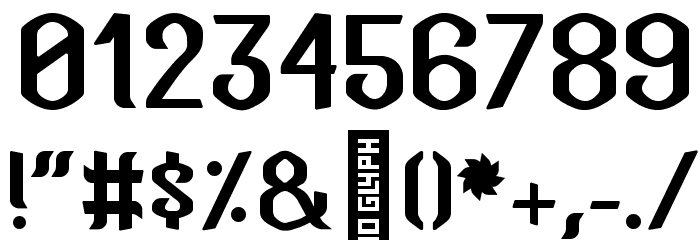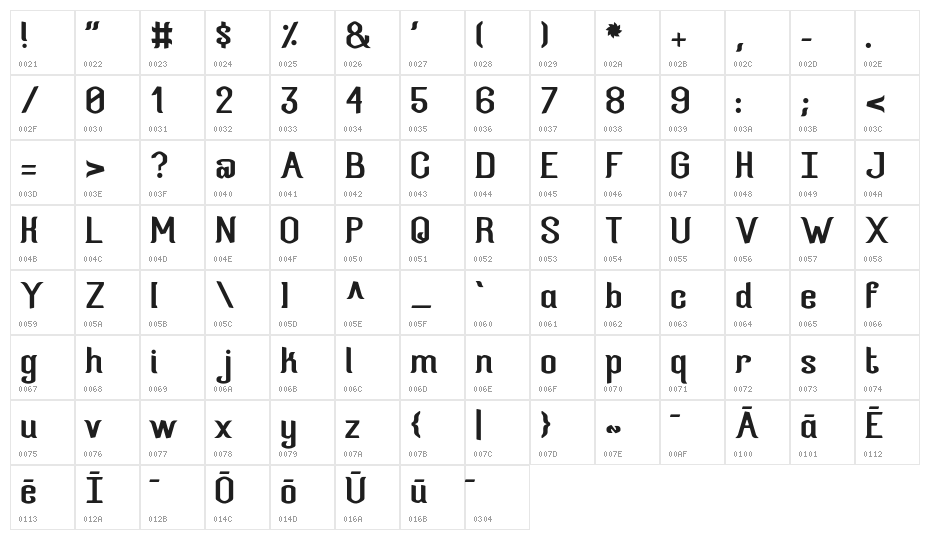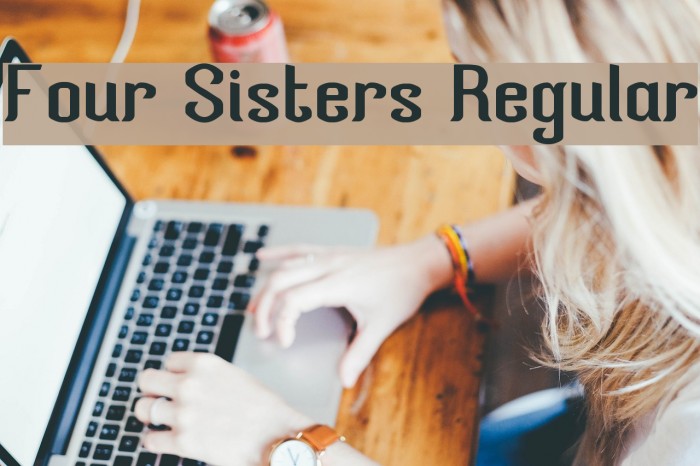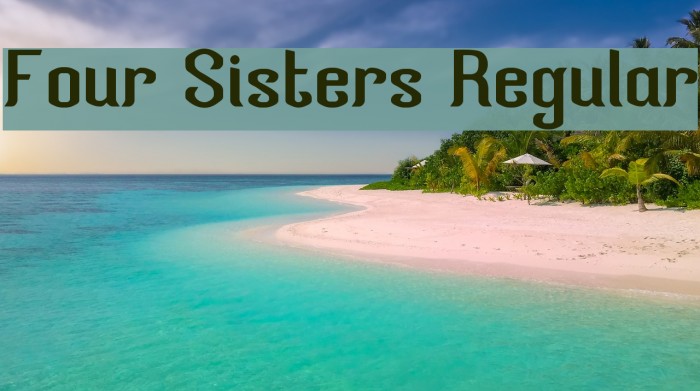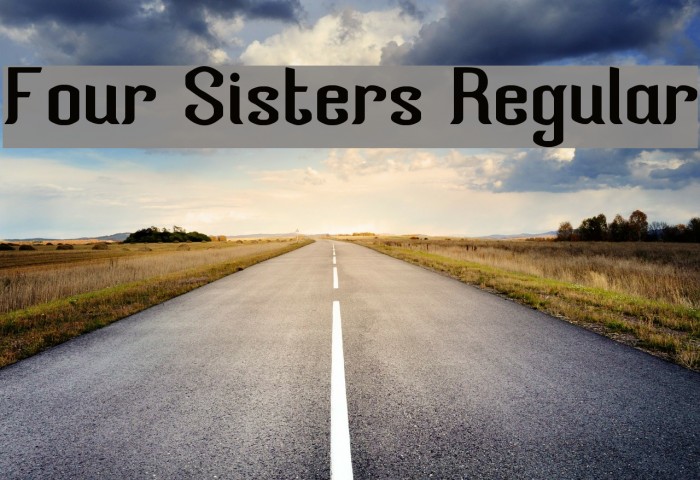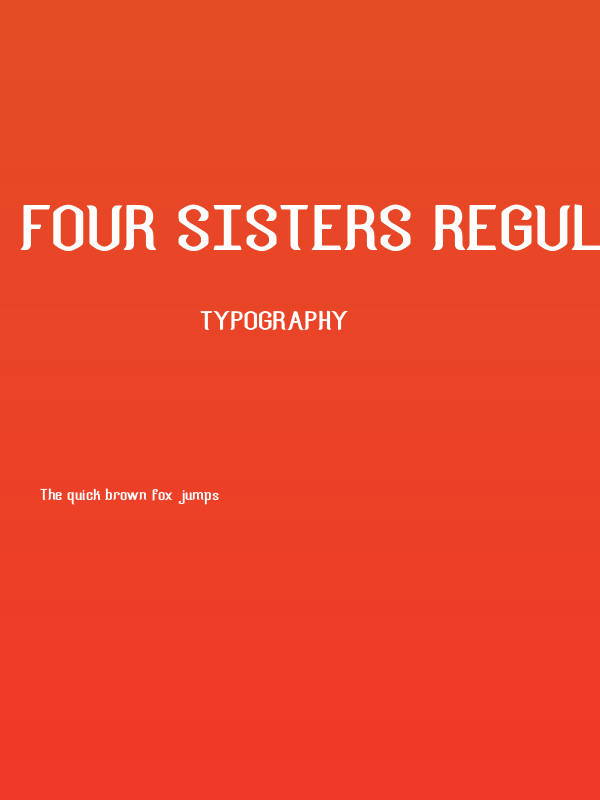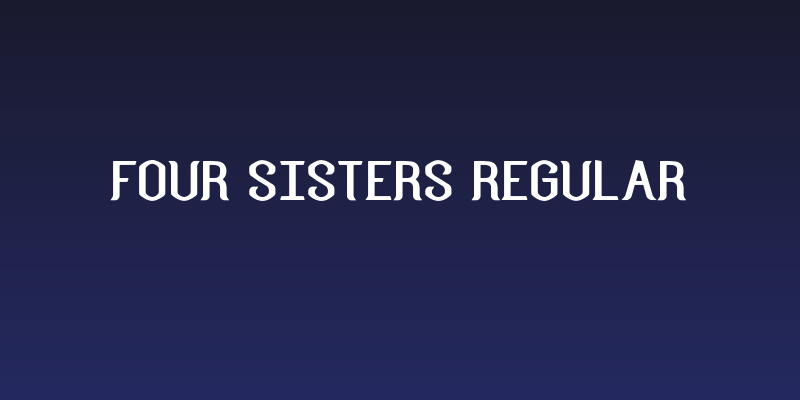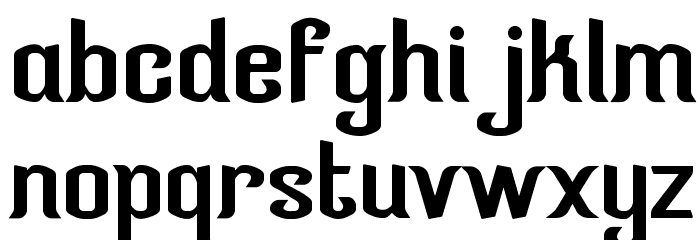
Four Sisters Regular Font
Four Sisters Regular Description
This font features a bold and dynamic style with a unique blend of geometric and organic shapes. The uppercase letters are characterized by their strong, angular forms, while the lowercase letters maintain a more rounded and approachable appearance. The numerals are distinct and easily readable, with a consistent weight that matches the alphabet. Special characters are designed with the same attention to detail, ensuring a cohesive look across all glyphs. This font's design is both modern and slightly retro, making it versatile for various applications.
| Overall Style | Modern, Retro |
| Proposed Projects | Ideal for branding, poster design, and headlines where a strong visual impact is needed. |